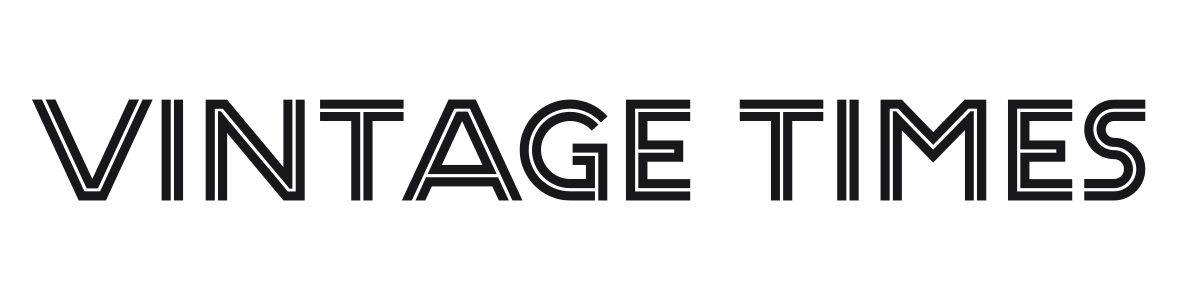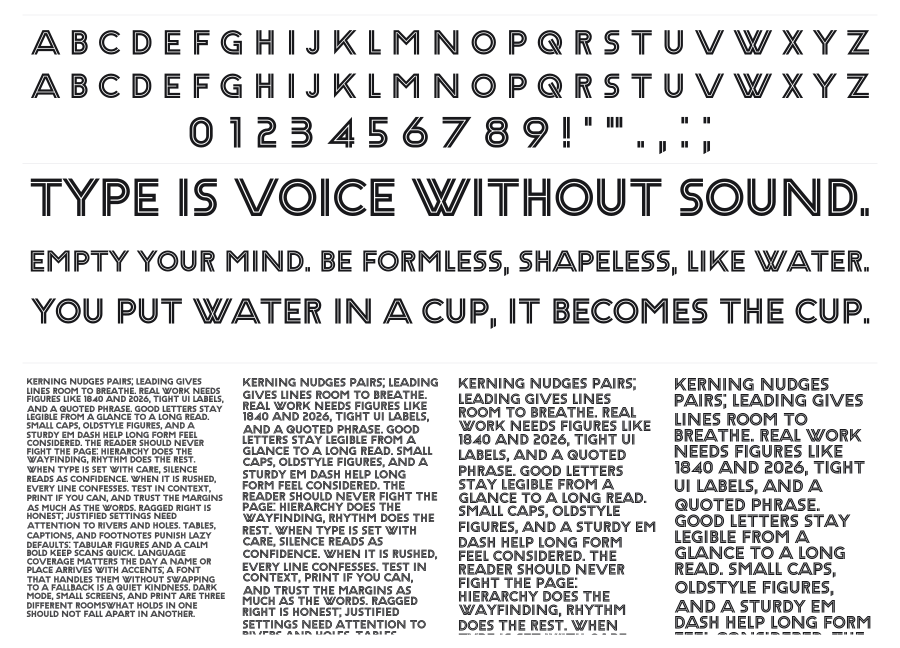
Vintage Times
Vintage Times is a wide geometric inline sans with a double-line detail running through every letter, straight out of Art Deco signage and vintage cinema. The bold outer strokes and crisp interior rules give it a layered, graphic quality that reads as confident and nostalgic at the same time. Works best large, where the inline detail can breathe.